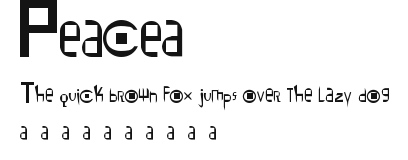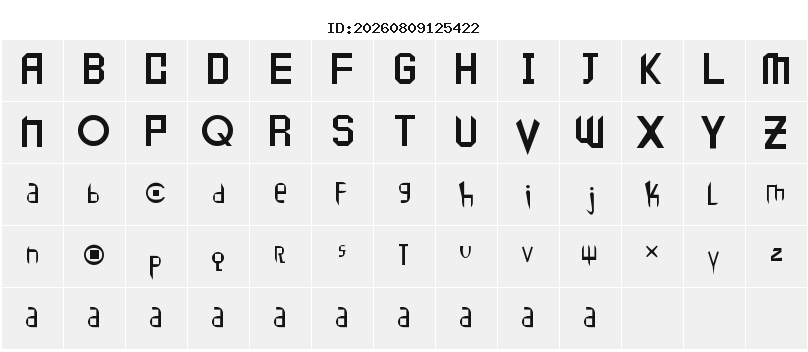
Peace1 Preview
About Peace1.ttf
Peace1.ttf is a modern, elegant sans-serif font designed for ultimate readability and visual harmony. Perfect for branding, headlines, web design, and print materials.